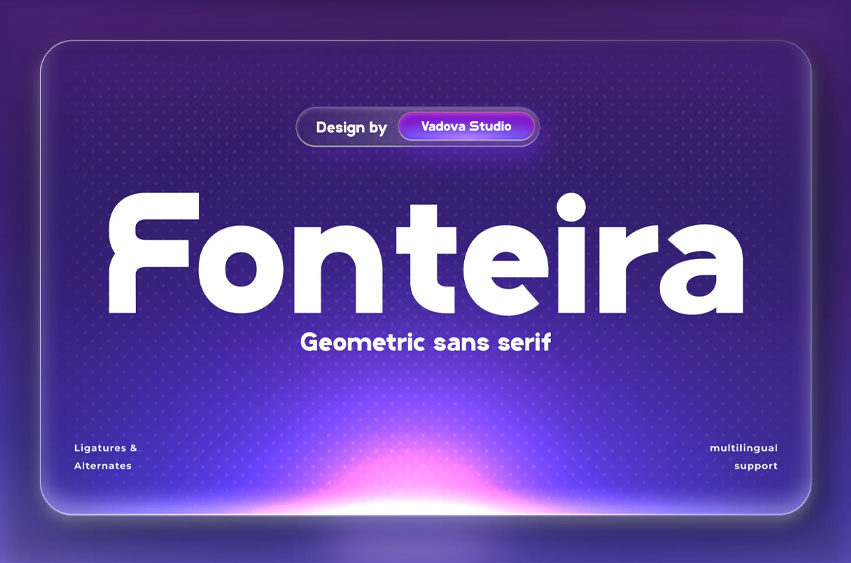
Fonteira Font is a bold geometric sans serif typeface designed to deliver clarity, impact, and modern visual rhythm in any design setting. With clean proportions, circular forms, and refined simplicity, Fonteira strikes a balance between friendliness and professionalism.
The typeface includes full uppercase and lowercase characters, numbers, punctuation, extended Latin glyphs with diacritics, stylistic alternates, and a collection of useful ligatures. Built with multilingual support, it adapts to global communication needs effortlessly.
• Uppercase & Lowercase characters
• Ligatures & Alternates